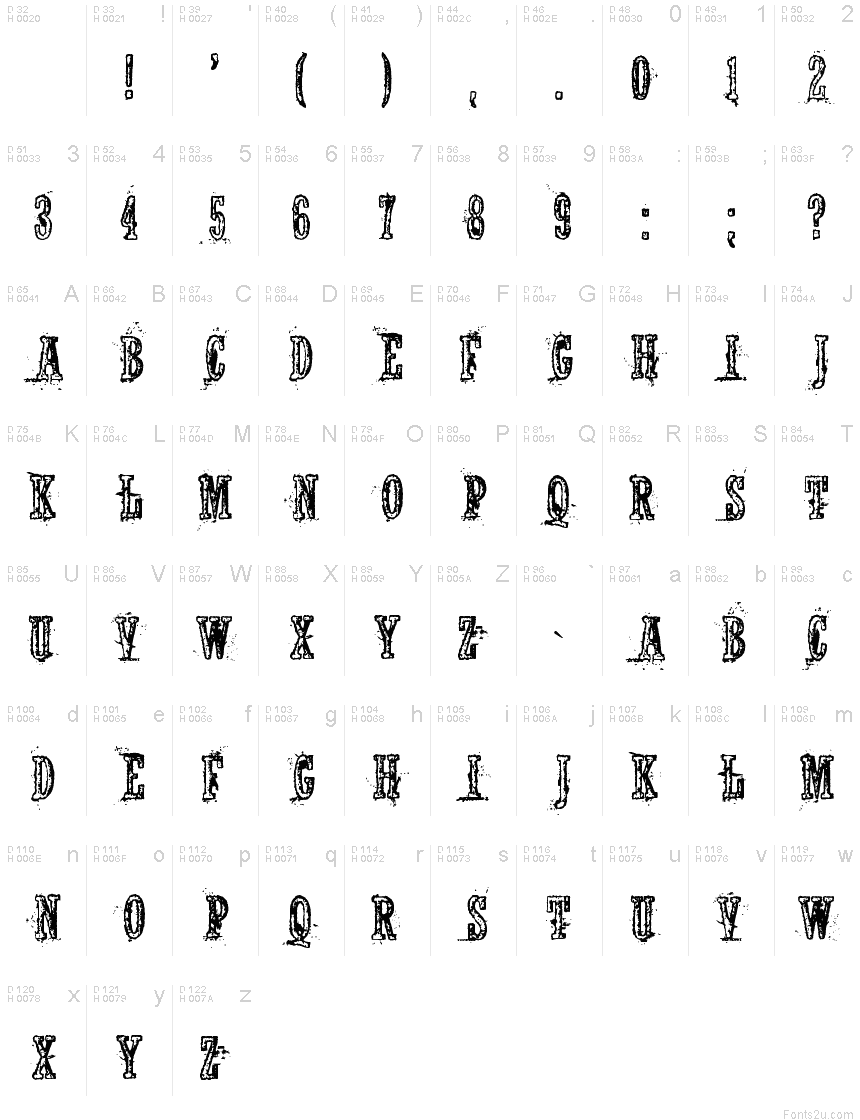
Notwell by High-Logic.com is a free eroded Western display font with slab serifs and a battered, letterpress-like surface. The capitals are tall and broad, with uneven edges that make each form appear chipped and weathered. Ink splatters sharpen the rough frontier character.
Posters provide an ideal medium for its theatrical scale and distressed detail, particularly for Western events or roots-music promotions. It also suits rugged beverage packaging and vintage-themed merchandise. The scattered marks can merge with woodcut illustrations or aged print textures, turning the lettering into part of the artwork.